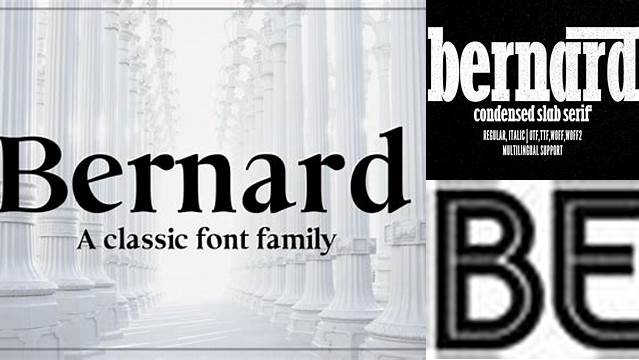
Hey everyone! 👋 If you're on the hunt for a versatile and elegant typeface, you've probably stumbled upon the Bernard Font Family. And guess what? You can often find the Bernard Font Family free download! That's right, folks, you can snag this fantastic font without spending a dime. This guide will walk you through everything you need to know about getting your hands on the Bernard Font Family, where to find it, how to use it, and why it's a great choice for your design projects. Let's dive in, shall we?
Bernard Font Family Free Download: Your Gateway to Elegant Typography
So, what makes the Bernard Font Family so special? Well, for starters, it's a beautifully designed font that offers a touch of sophistication and readability. It's a great option for a variety of projects. The availability of a Bernard Font Family free download makes it even more appealing. Who doesn't love a great font that doesn't break the bank? We all do, right? The Bernard Font Family comes in various weights and styles, giving you plenty of options to play with. Whether you're working on a website, a print project, or social media graphics, this font has got you covered. Finding a Bernard Font Family free download allows you to explore its versatility without any financial commitment. You will find different versions such as Bernard MT Condensed and Bernard MT, it's all about finding the version that perfectly matches your design vision. We will discuss the various avenues for obtaining your Bernard Font Family free download, but let's first explore why this font is a smart addition to your font library. The Bernard Font Family brings a clean, modern aesthetic to any project. It's perfect for headlines, body text, and everything in between. It’s also easy on the eyes, making it a solid choice for long-form content. So, whether you're a seasoned designer or just starting out, keep an eye out for that Bernard Font Family free download – it's a game-changer.
Bernard MT Condensed: A Sleek Variation of the Bernard Font Family
Let's talk about a specific member of the family: Bernard MT Condensed. If you are looking for a refined, space-saving version of the font, then this is the one for you. The Bernard MT Condensed is perfect for headlines and displays where space is a factor. This variation is known for its condensed letterforms, which pack a punch. This particular version makes it ideal for fitting more text into a limited space. What sets Bernard MT Condensed apart is its ability to maintain readability. It allows you to use a larger font size without sacrificing space. This makes it excellent for creating visual hierarchy and drawing attention to key elements in your design. Think of it like a secret weapon in your design arsenal. It lets you maximize space while still delivering a powerful visual impact. If you come across a Bernard Font Family free download, chances are good that Bernard MT Condensed is included in the package. It offers designers a fantastic way to achieve a modern and streamlined look. It's a highly sought-after font. Its functionality combined with its elegant design makes it very popular among designers. If you get your hands on the Bernard Font Family free download, give Bernard MT Condensed a shot. You will see how it can take your designs to the next level.
Using Bernard MT Condensed for Effective Design
Let's dive into how you can wield Bernard MT Condensed to create stunning designs. Its condensed nature makes it ideal for headlines. By using Bernard MT Condensed for your titles and headings, you can make them pop while saving precious space. It works wonders in brochures, posters, and website headers. This font also shines in subheadings and call-to-action phrases. Because of its condensed form, it allows you to create a bold impact without overwhelming the overall layout. In addition to headlines, Bernard MT Condensed can work nicely in body text, especially if you need to fit a lot of information in a small area. However, be mindful of readability, ensuring the font size is large enough to be comfortable to read. You can pair Bernard MT Condensed with a more traditional font for body text to create a well-balanced design. Try experimenting with different weights of the font. Bernard MT Condensed comes in various weights. This way you can create visual interest and emphasis within your designs. Using different weights can create a dynamic layout. With the Bernard Font Family free download, you'll unlock this creative possibility. The key is to experiment and find what works best for your project. Practice and creativity are key to bringing the best out of Bernard MT Condensed.
Bernard Font Family vs. Bernard MT Condensed: Key Differences
Now, let's break down the differences between the Bernard Font Family and Bernard MT Condensed. While they are both part of the same font family, they have unique characteristics that make them suitable for different design applications. The primary difference lies in the width of the letterforms. Bernard MT Condensed features a narrower design, allowing you to fit more text horizontally. This is its main advantage. The standard Bernard Font Family offers a wider range of styles and weights. It gives you more flexibility in creating a variety of designs. For instance, you can use different weights to add visual interest. The standard Bernard Font Family provides a more traditional feel, while Bernard MT Condensed leans towards a modern, space-saving aesthetic. When you get the Bernard Font Family free download, you will often receive the standard version. Some packages include Bernard MT Condensed as a bonus. When deciding between the two, consider the needs of your project. If you're aiming for a compact design or need to maximize horizontal space, Bernard MT Condensed is your best bet. If you're looking for a wider range of design options, and you have more space to play with, go with the standard Bernard Font Family. Always keep in mind the visual tone you want to achieve. Knowing the differences empowers you to choose the right font for the right job.
Enhancing Designs with the Bernard Font Family Free Download
Alright, let's get down to the nitty-gritty: how to use the Bernard Font Family free download to make your designs shine. First, think about where this font would be best suited. Because of its clean and elegant appearance, it works really well for branding and marketing materials. Think about logo designs. The font's versatility lets it adapt to many different industries. It can enhance a variety of designs, from websites to social media posts. Next, think about pairing the font with complementary fonts. You can pair Bernard Font Family with other fonts. Doing so will create visual harmony and add depth to your projects. Try experimenting with different combinations to find what works best. You will also want to consider the font's weight and style to create a good visual hierarchy. This will guide the viewer's eye and emphasize the most important information. By varying the weight and style, you can create contrast. Using Bernard Font Family free download wisely can bring a touch of sophistication to your projects. It is all about experimenting and playing with different combinations and styles. With some practice, you will quickly see how to enhance your designs.
Best Practices for Using the Bernard Font Family
To make the most out of the Bernard Font Family, let's go over some best practices. First off, remember the importance of readability. Pick a font size that's easy on the eyes, especially for body text. You want your audience to enjoy reading your content. In terms of the visual hierarchy, use different weights and styles. You can do this to make your headlines, subheadings, and body text stand out. A visual hierarchy helps readers understand the structure and importance of your information. Color is another crucial element. Try pairing the font with colors that complement its clean aesthetic. Experiment with color combinations to make your designs visually appealing. When you are using the Bernard Font Family, consider the overall tone and message you want to convey. If you are going for a professional look, use the regular or bold weight. If you are targeting a more casual audience, experiment with lighter weights and styles. Lastly, always ensure your designs are consistent across different platforms and applications. This consistency helps reinforce your brand identity. Following these best practices will let you make the most out of your Bernard Font Family free download.
The Bernard Font Family in the Future of Design
What does the future hold for the Bernard Font Family in design? The Bernard Font Family is likely to remain relevant. Its clean design and versatility are key. This is a great option for both print and digital projects. As design trends change, it will continue to adapt. The Bernard Font Family is also easy to use. New technologies will continue to emerge, but the font's simplicity will remain important. So, if you get a Bernard Font Family free download, you're in good shape. The font will evolve with the times. It will remain useful to designers. By using this font, you can create beautiful and effective designs for years to come. Embrace the future. Keep experimenting. Keep learning, and the Bernard Font Family will continue to serve you well.